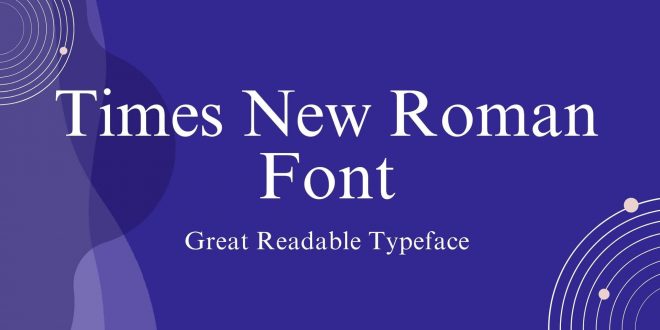
Times New Roman was designed by typographic designer Stanley Morison and authorized by British newspaper “The Times”. It belongs to the serif typeface family. In 1932 this font was released by typeface foundry “Monotype”.  The design of this typeface is based on an old sans serif font Platin font. This is one of the popular … Continue reading Times New Roman Font Free Download